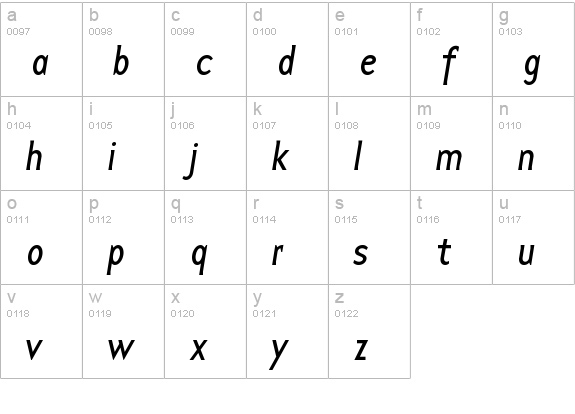
BaseTwelveSansI Regular Font Details
BaseTwelveSansI Regular is the standard, neutral variant in the BaseTwelveSansI typeface family \xE2\x80\x94 well suited to general body text, paragraphs, and standard typographic work.
BaseTwelveSansI Regular is a modern and versatile typeface that perfectly balances simplicity and elegance. With its clean lines and rounded edges, this font exudes a sense of sophistication and professionalism. The uniform stroke width and geometric shapes make it easy to read in any size, making it suitable for a wide range of design projects. What makes BaseTwelveSansI Regular even more appealing is that it is available for free download at FontsMarket.com. This means that you can easily access this high-quality font without any cost, making it a valuable addition to your font library. Whether you are working on branding, web design, or print materials, BaseTwelveSansI Regular is sure to enhance the visual appeal of your projects. Download it today and elevate your designs with this sleek and modern typeface.